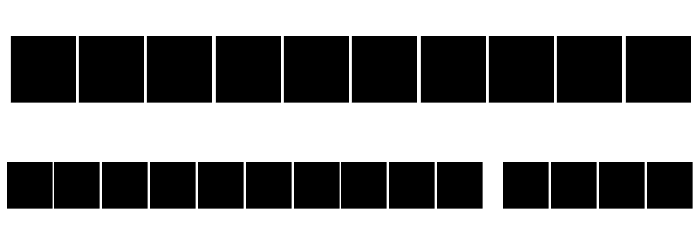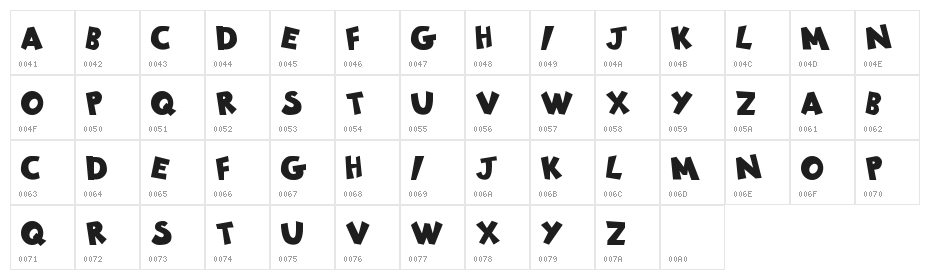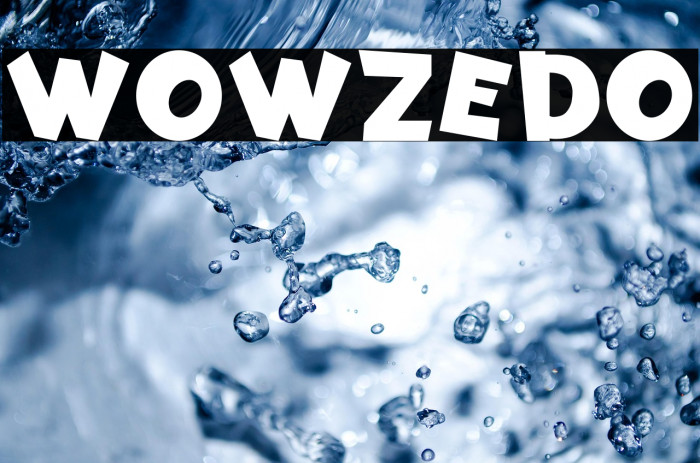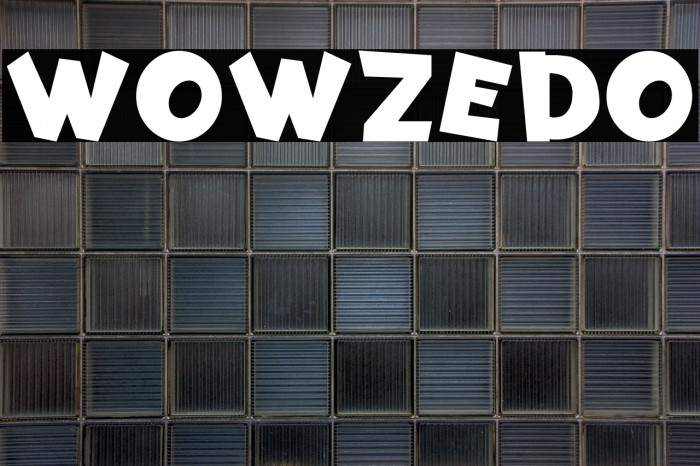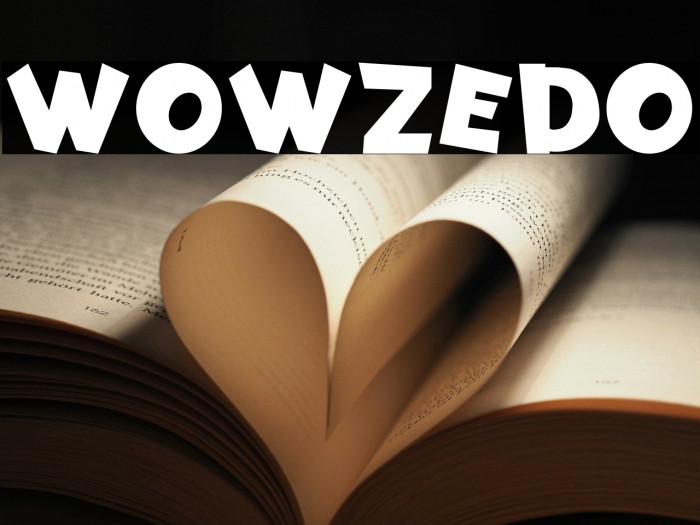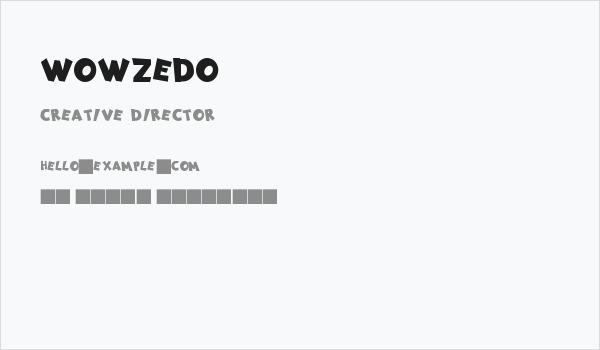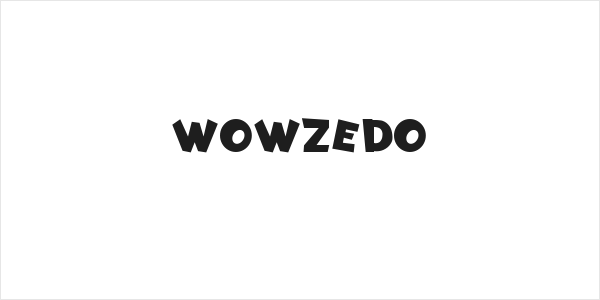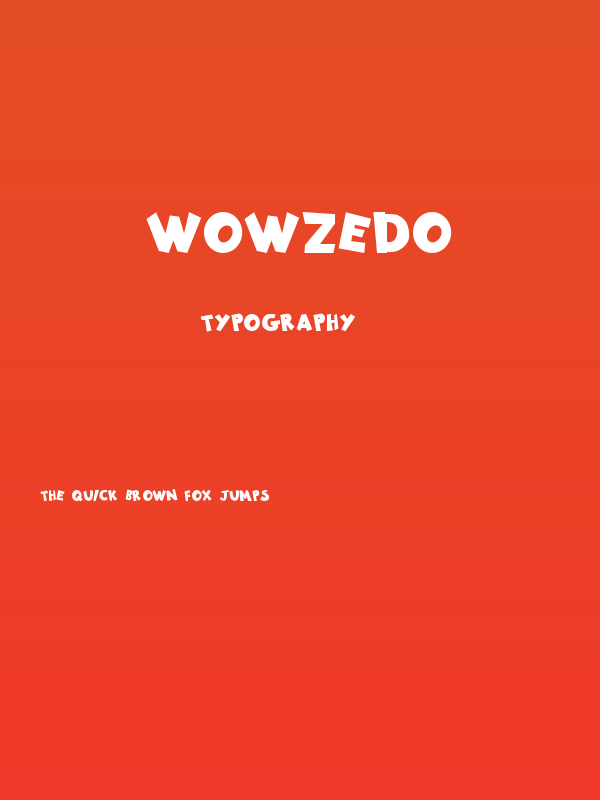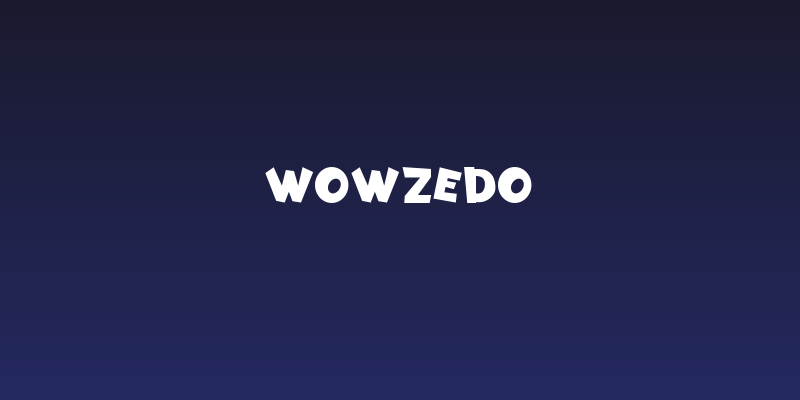
Wowzedo Font
Wowzedo Description
This font features a playful and bold design, characterized by its irregular and dynamic letterforms. Each character appears to have a unique tilt and angle, giving the font a lively and energetic feel. The bold strokes and exaggerated shapes make it highly visible and attention-grabbing, perfect for creative and informal applications. The uppercase letters are particularly prominent, with a strong presence that commands attention. The font lacks lowercase letters and special characters, focusing solely on uppercase alphabets. Its whimsical style makes it suitable for projects that require a fun and engaging visual impact.
A personally designed font that uses chunky lettering to create a fun and cool style that calls back to the wild and irreverent 90s style.
| Proposed Projects | Ideal for children's book covers, playful branding, party invitations, and eye-catching posters. |